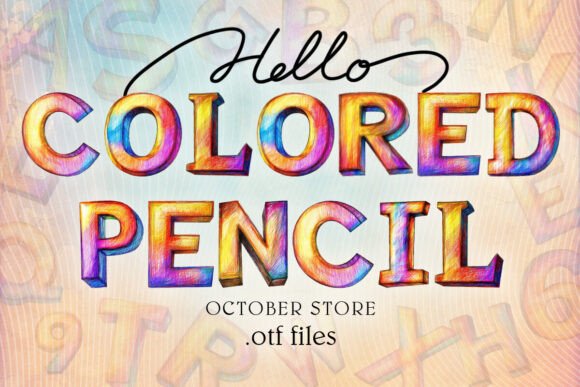
Colored Pencil
Finding the right design elements can be challenging, but Colored Pencil offers an exceptional collection that elevates your work instantly.
Whether you are creating POD (Print on Demand) products, wedding invitations, or social media graphics, Colored Pencil is an ideal fit.